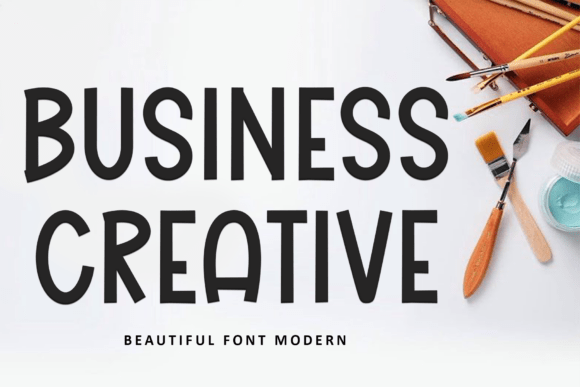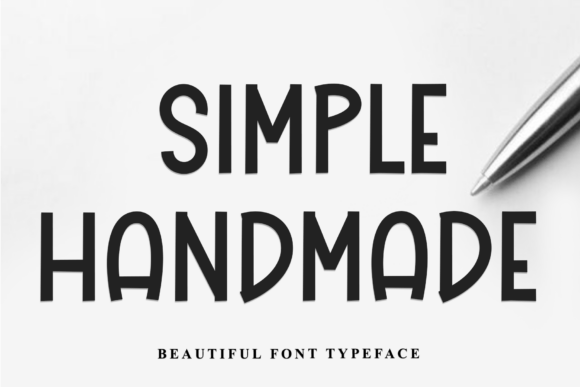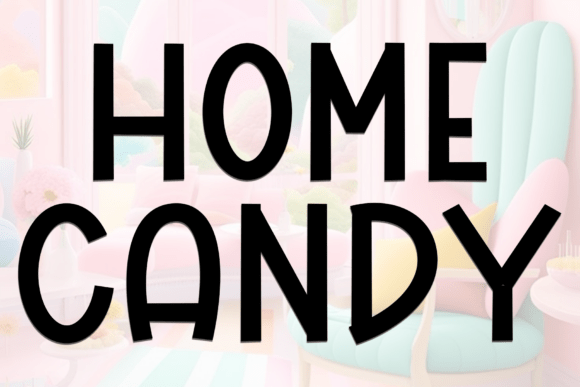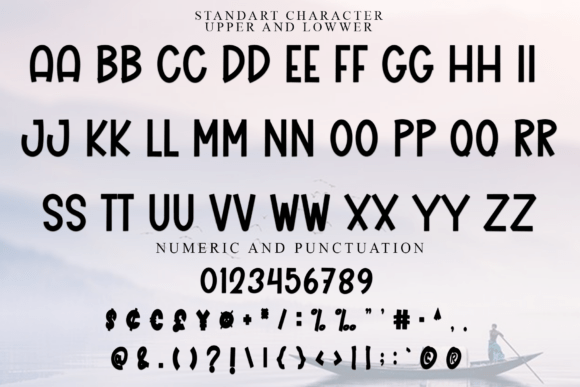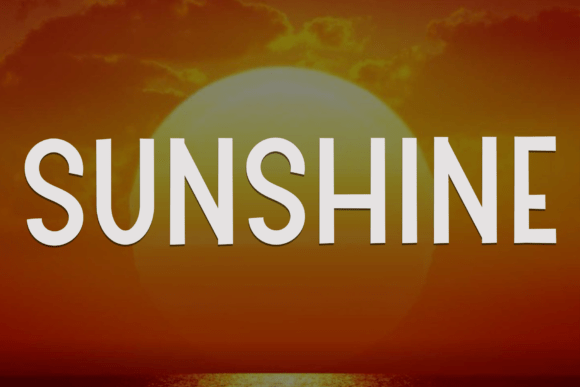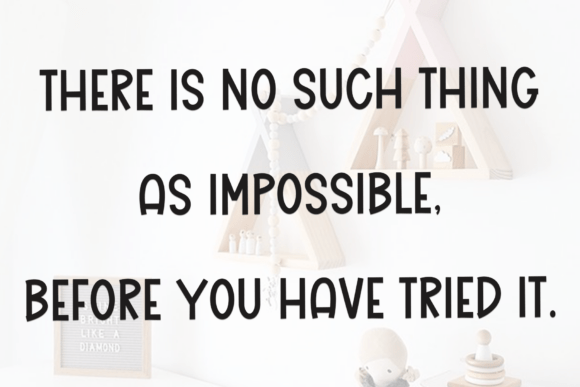
Introduction to Planing School Font
Planing School is a festive and merry typeface that captures the spirit of the holiday season.
Key Features of Planing School Font
Why Choose Planing School Font?